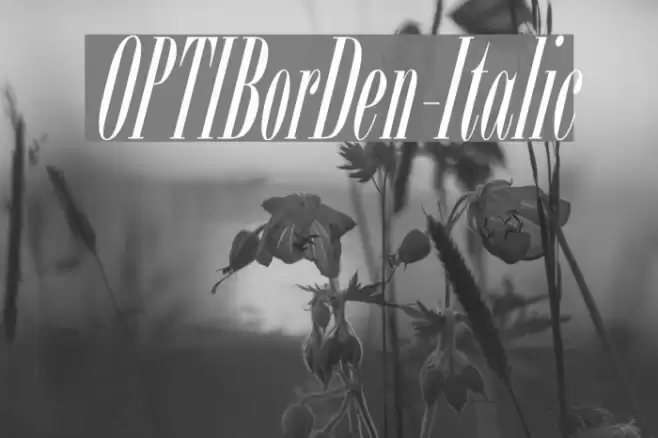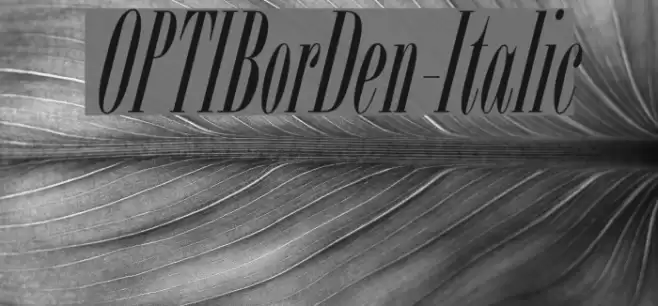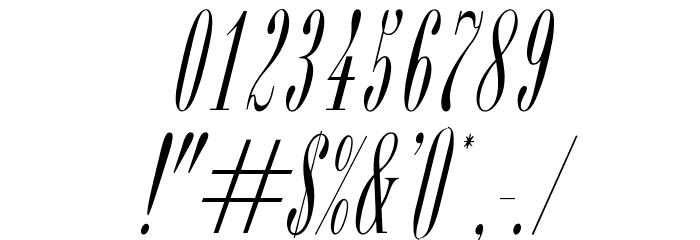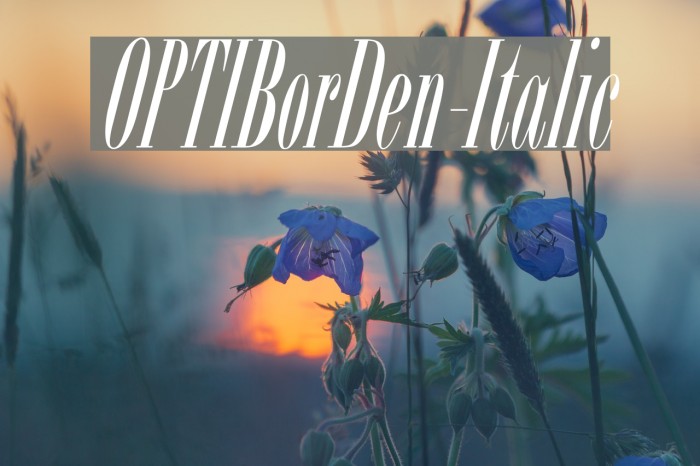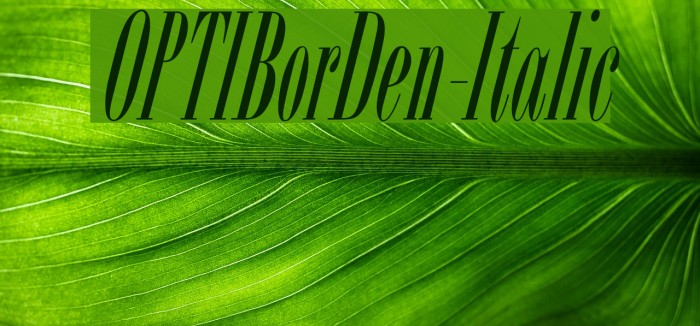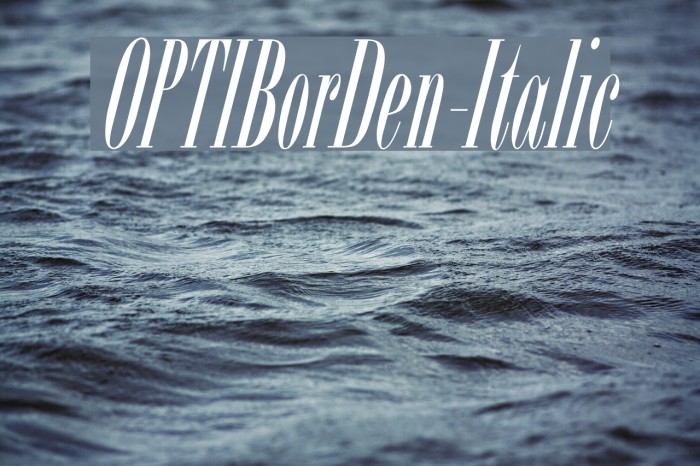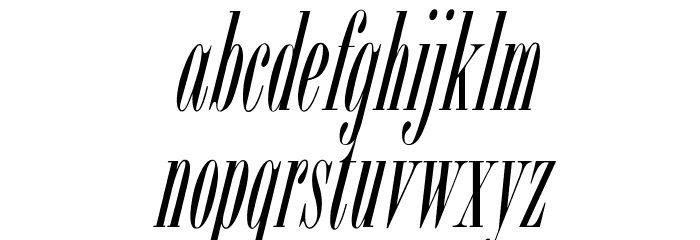
OPTIBorDen-Italic Font
OPTIBorDen-Italic Description
This font exhibits a sophisticated and elegant italic style with elongated and narrow letterforms. The characters are sharply defined, with a high contrast between thick and thin strokes, giving it a refined and classic appearance. The slanted orientation adds a dynamic and fluid motion to the text, making it suitable for formal and stylish applications. The uppercase letters are tall and commanding, while the lowercase letters maintain a consistent flow and balance. The numerals and special characters are designed to complement the overall aesthetic, ensuring uniformity across all elements.
An elegant and high-contrast italic font with narrow, elongated letterforms from Uncategorized fonts.
- Proposed Projects: Ideal for luxury branding, wedding invitations, editorial design, and high-end product packaging.
- Character Spacing: Tight
- Overall Style: Classic